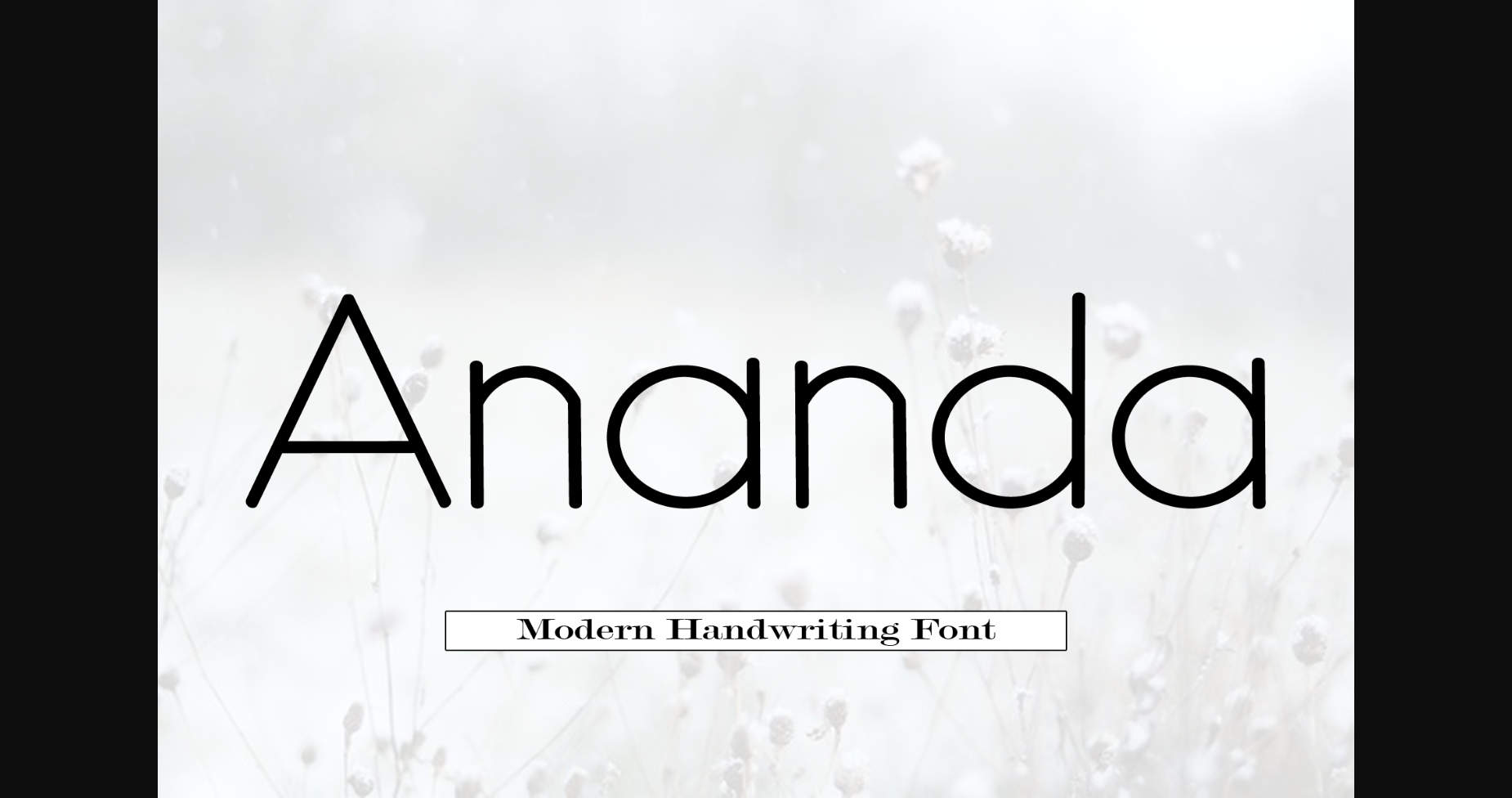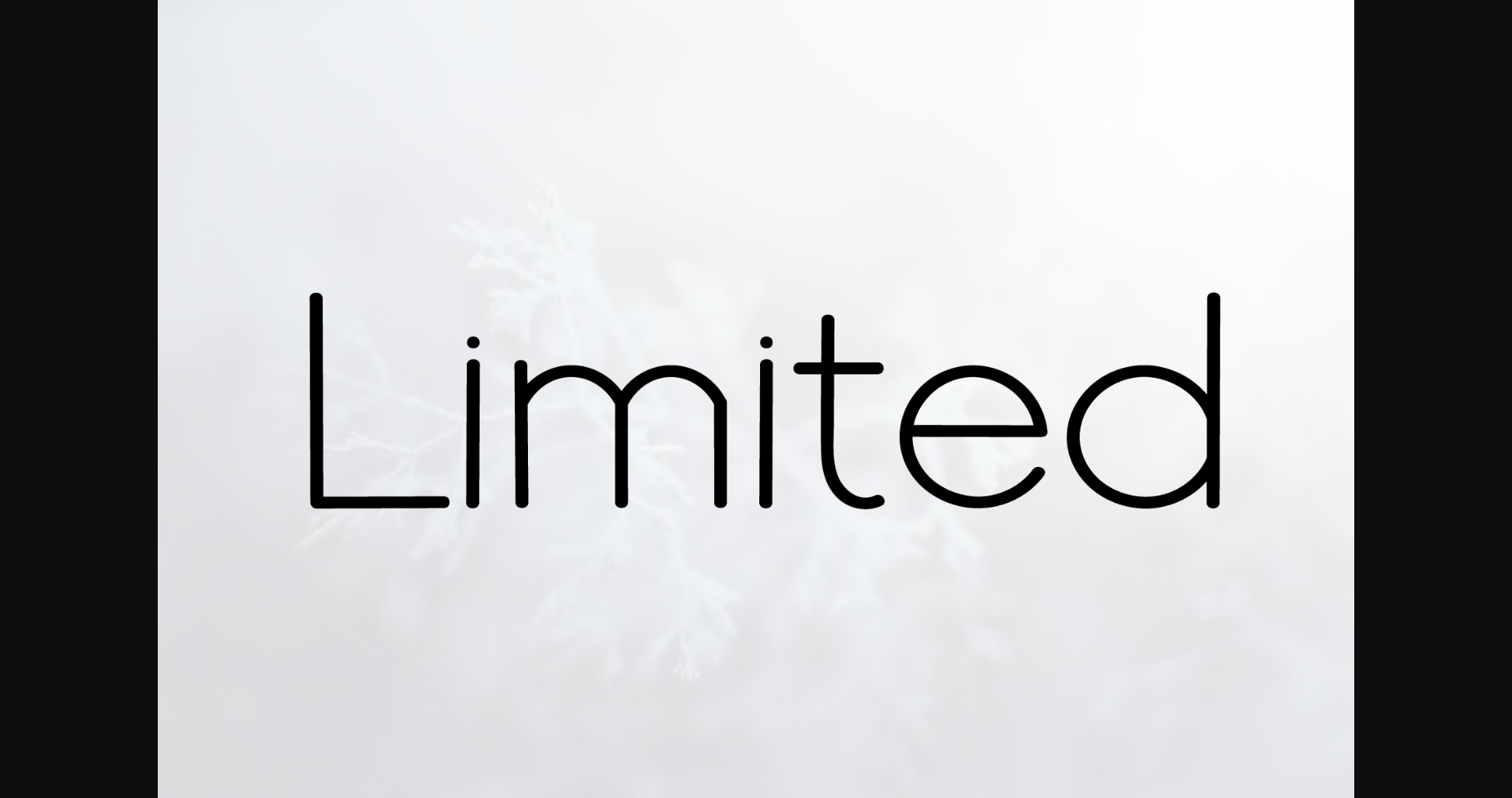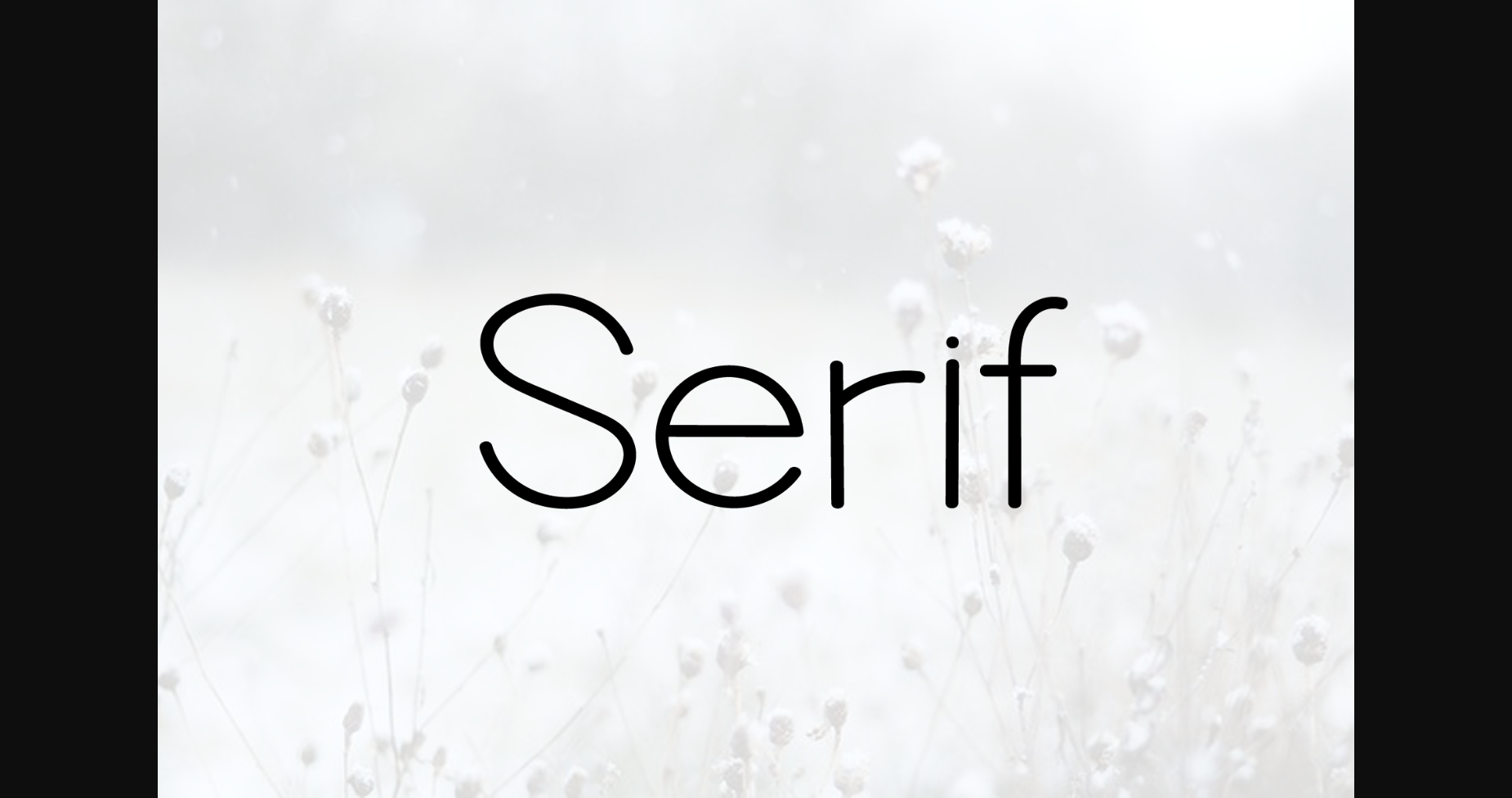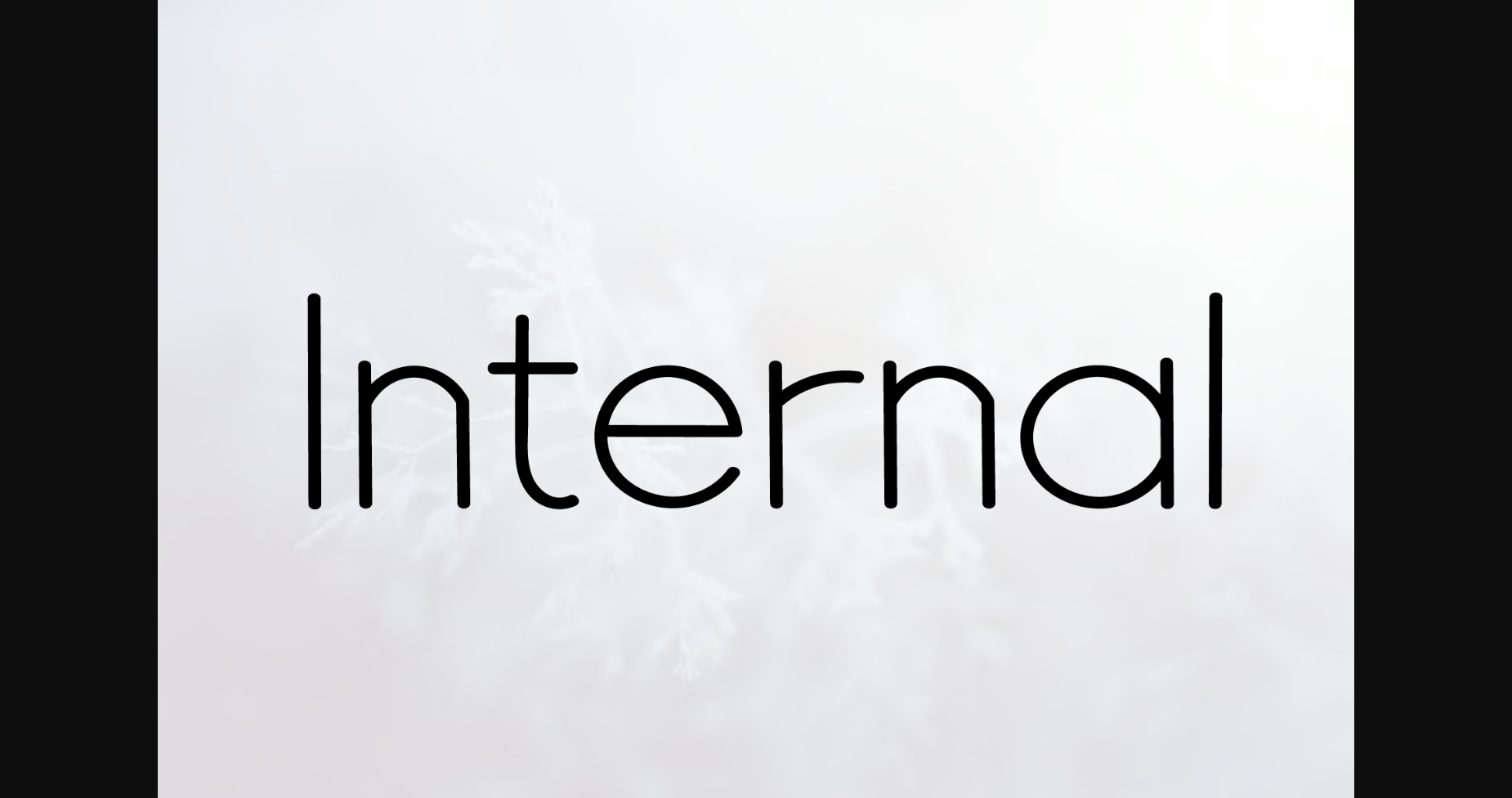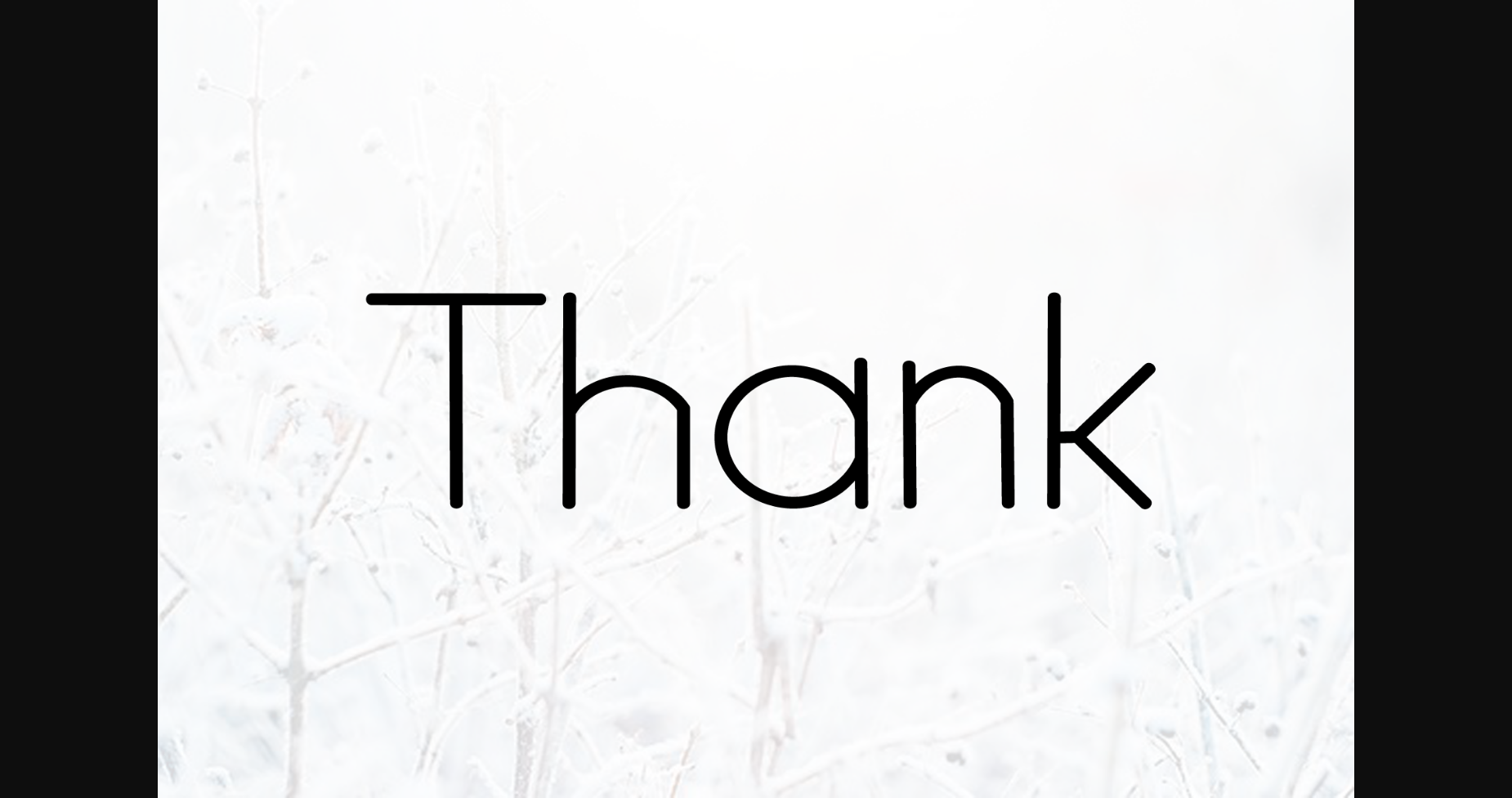
Ananda is a classic and simple sans serif font. It is suitable for logotypes, headlines, corporate identity, brand identity, apparel industry, posters, music, movies, games, magazines, books and much more.